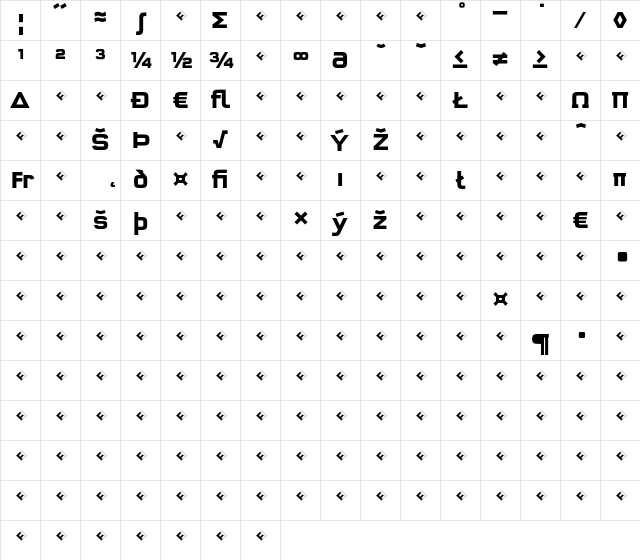
QTypeSquare-BoldExpert Regular
Design Context for QTypeSquare-BoldExpert
QTypeSquare-BoldExpert is a composed and adaptable typeface that performs quietly and consistently across a wide range of design contexts. Its bold stroke weight gives it real presence on the page.